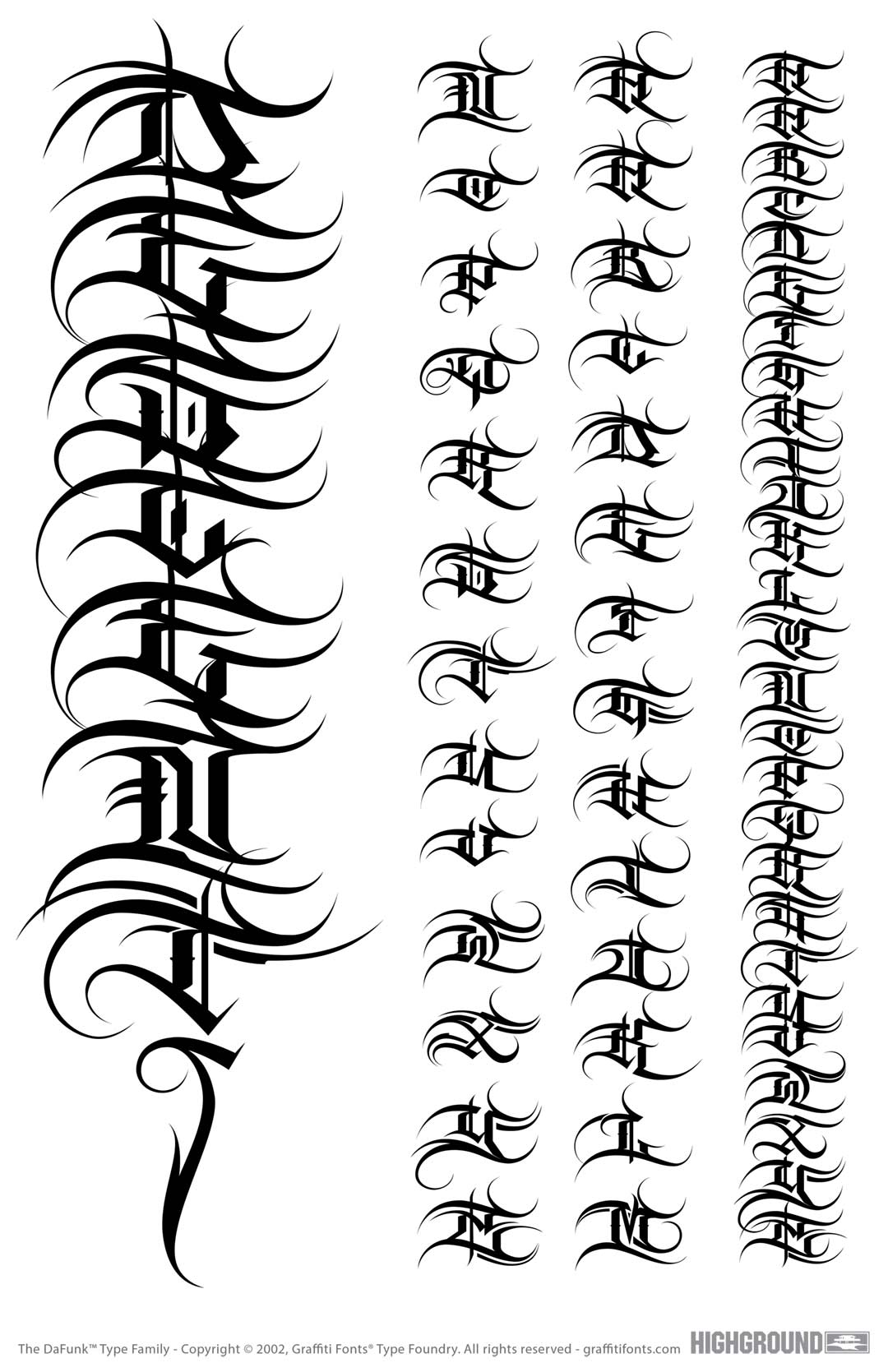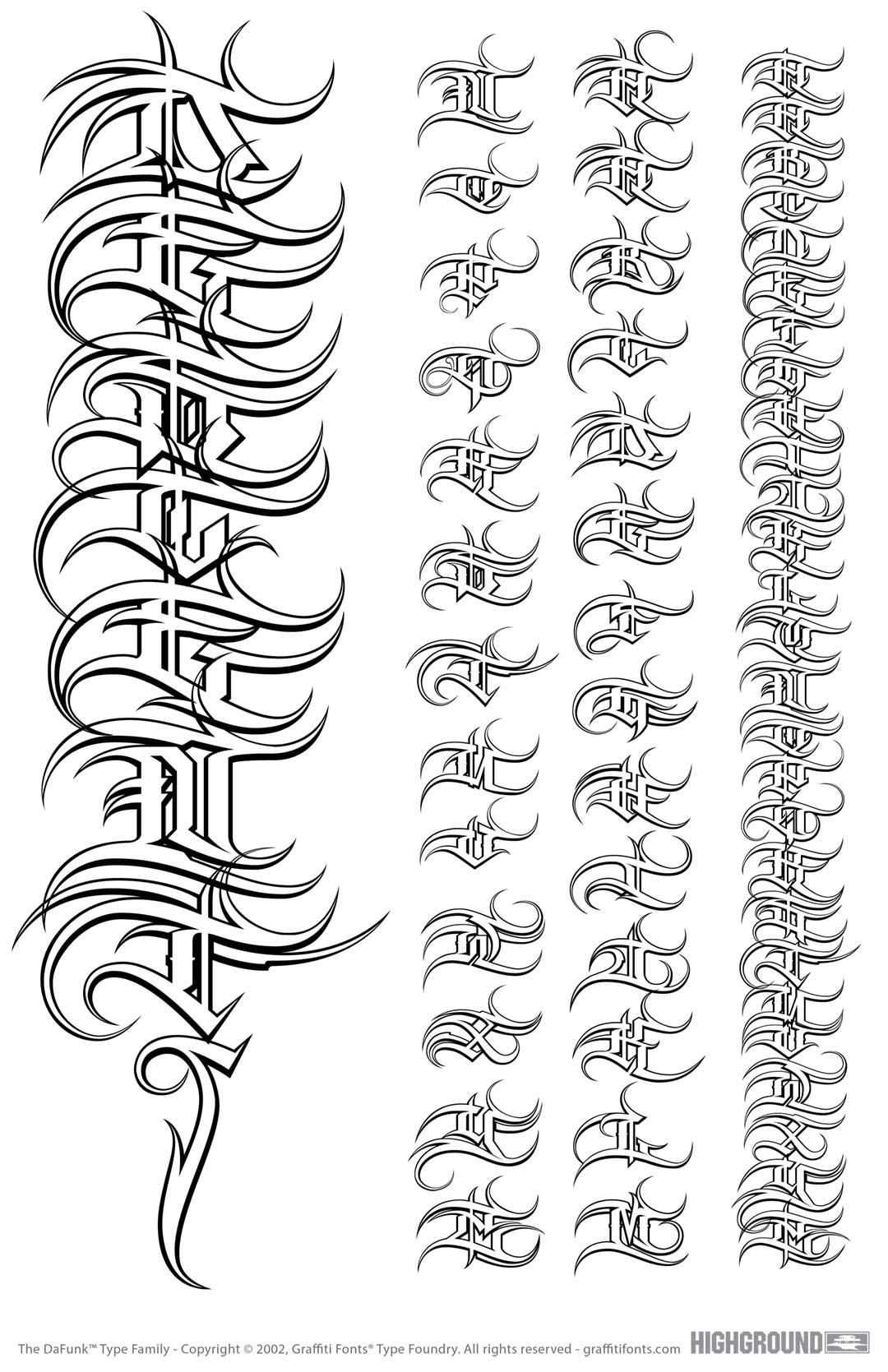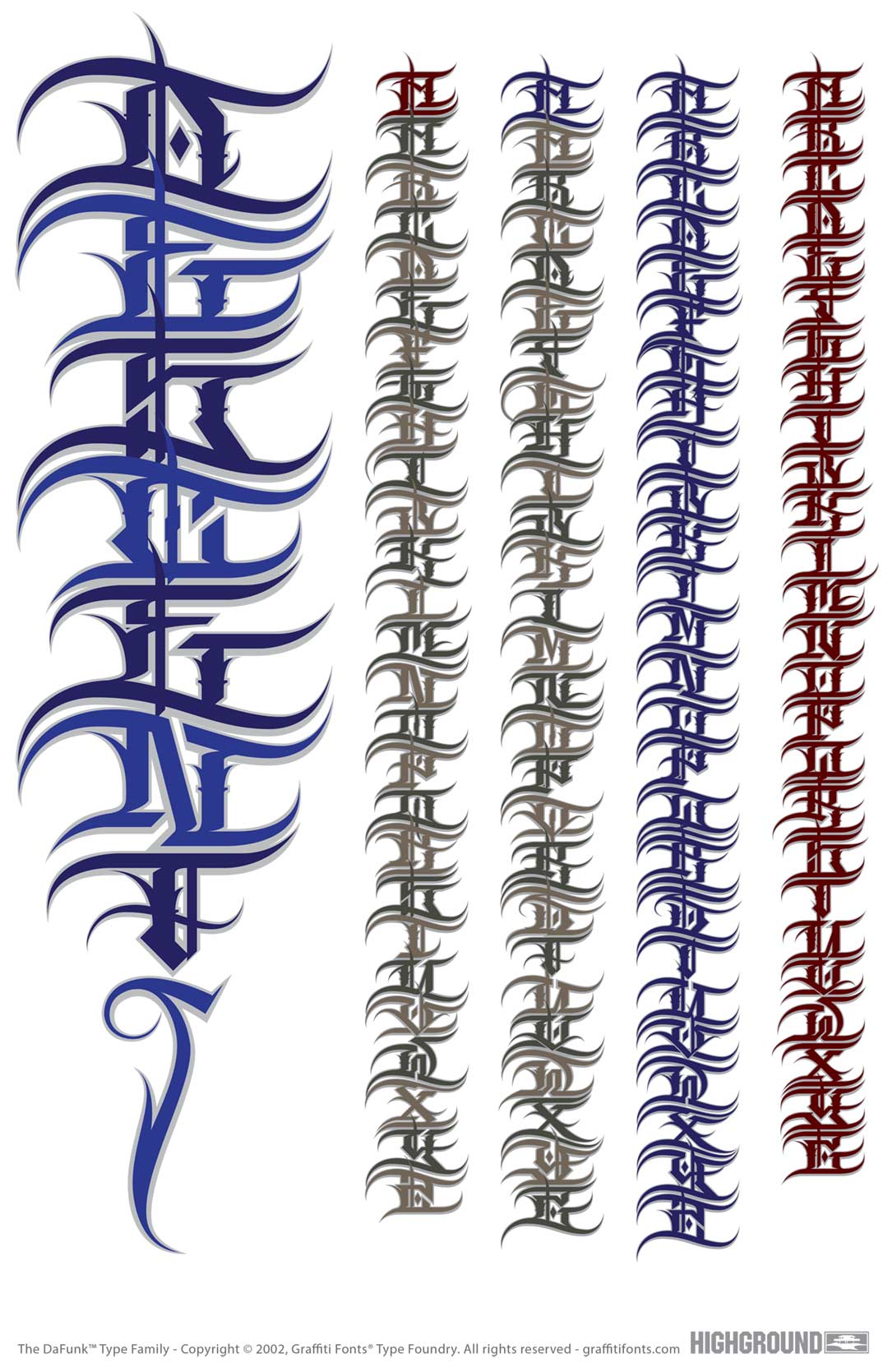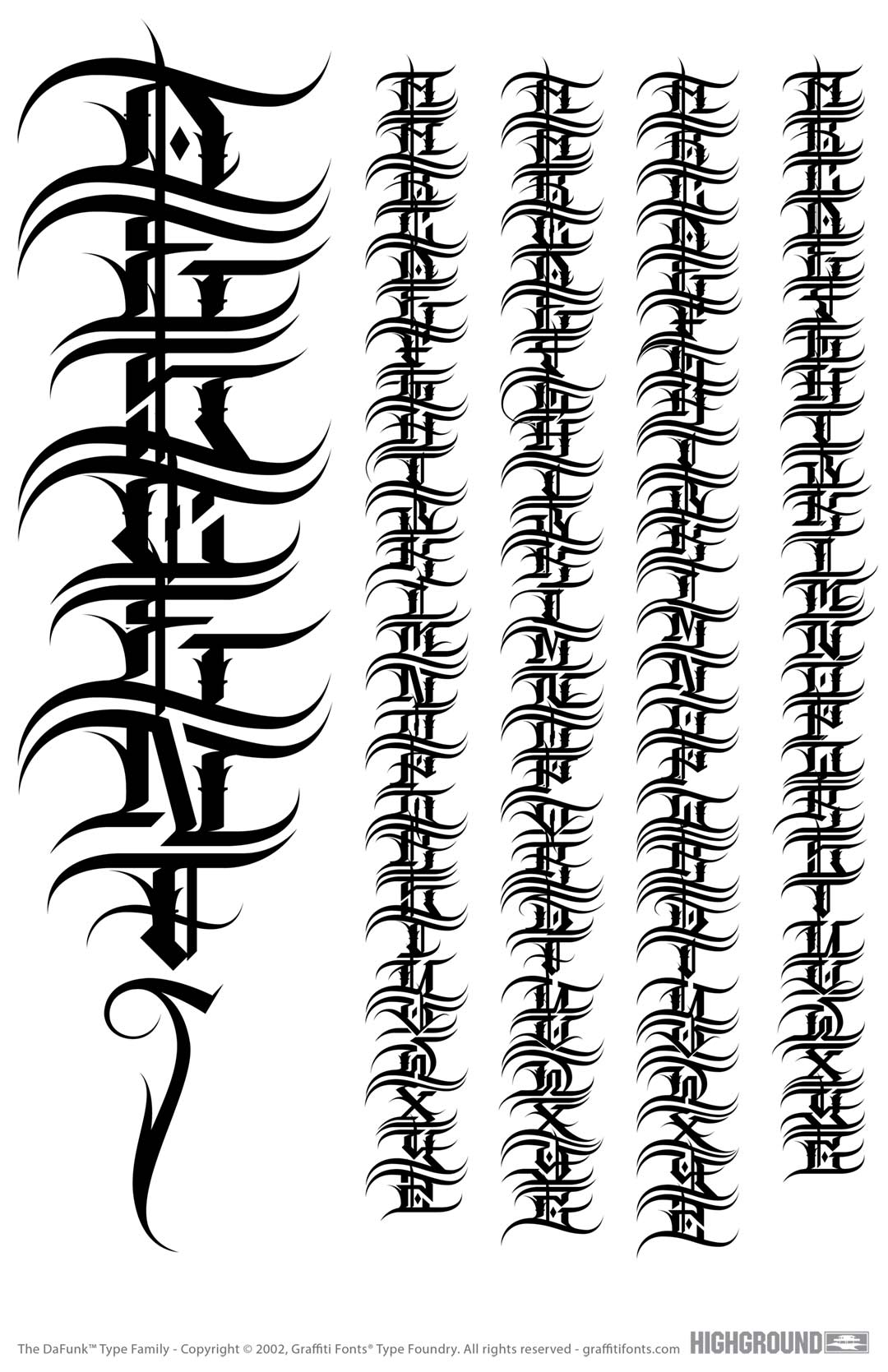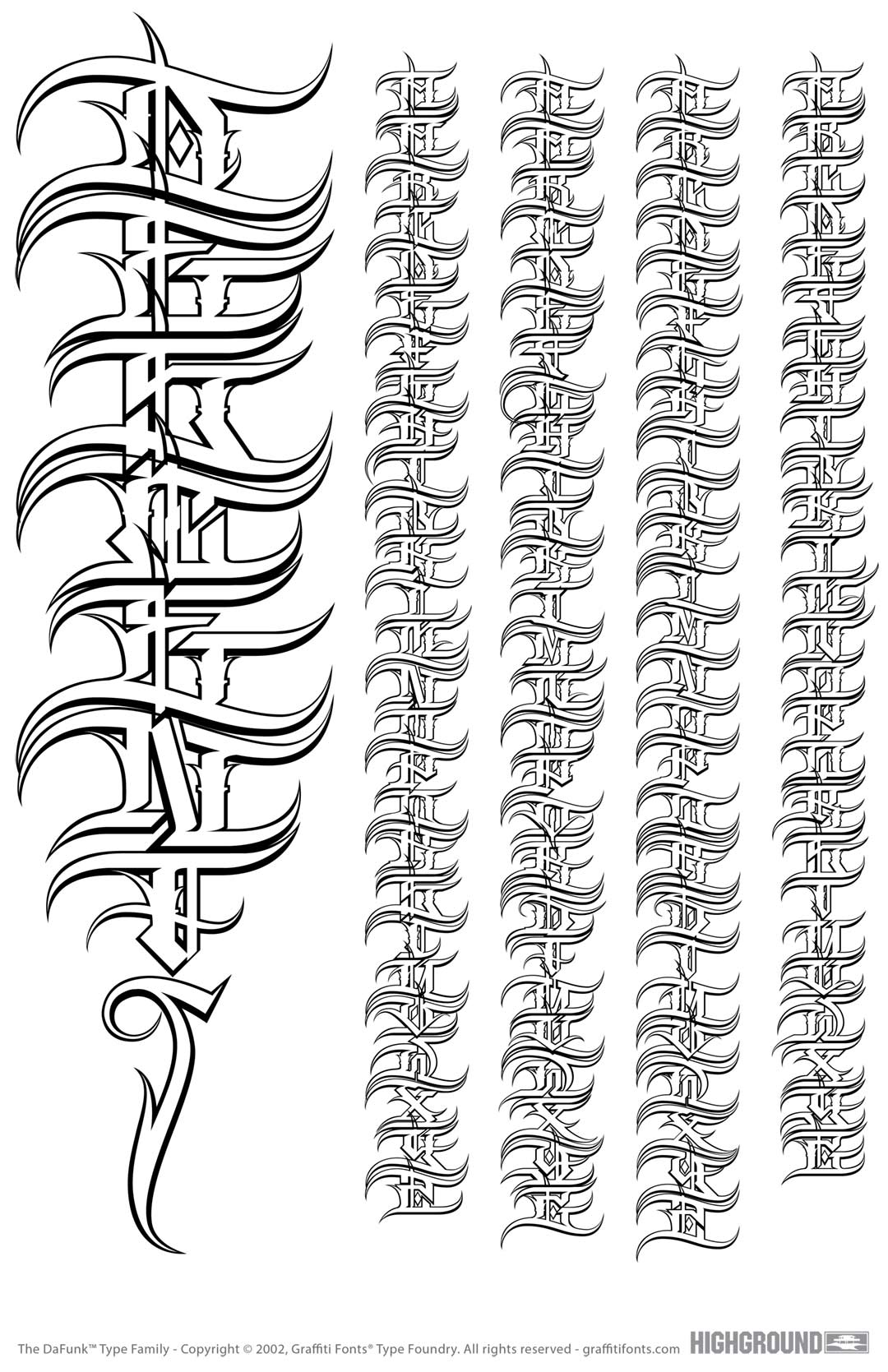
The Descent family is a unique, graffiti style, layered type system consisting of a contextual style & a classic style, each with a base fill version & an outline version. Based on a signature category of wildstyles by Graffiti FontsĀ® lead designer Raseone, this family was designed to be rotated 90 degrees clockwise so that the text reads in a downward direction. OpenType scripting in the contextual version enables up to 12 unique variants of any word using alternating patterns of interlocking glyphs. The classic version does not include OpenType features but instead has initial glyphs as capitals and medial glyphs in the lowercase positions. The characters in the classic version are similar to the more advanced contextual version but noticeably different & a bit more irregular. Glyphs from both styles can be mixed & used interchangeably & both styles can be stacked with their corresponding outline fonts.